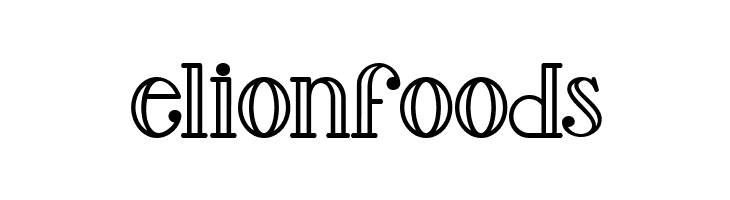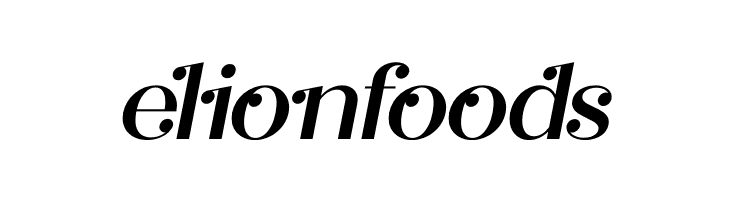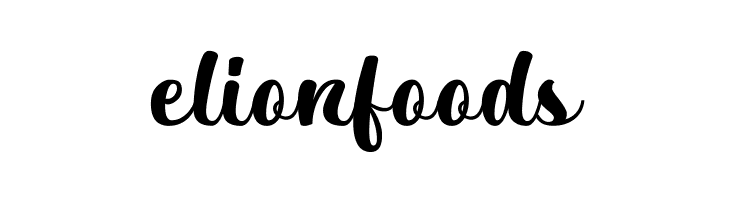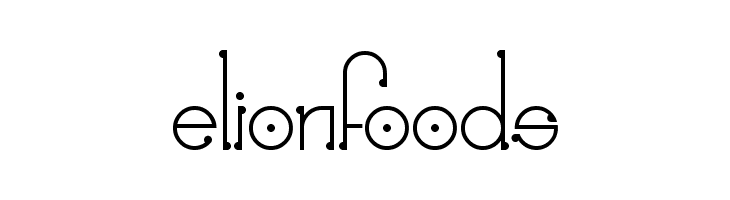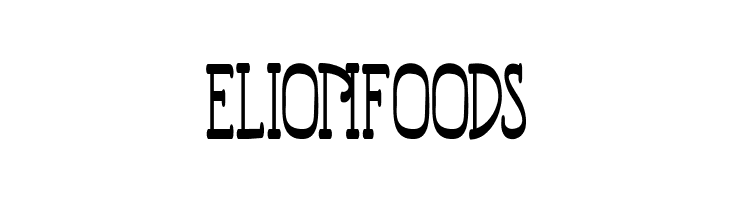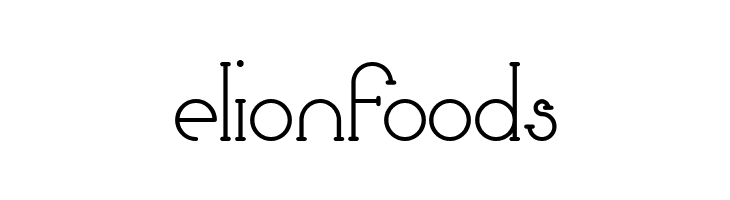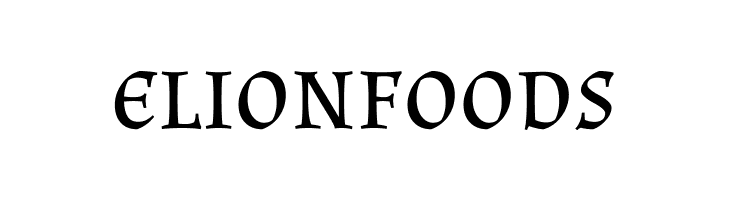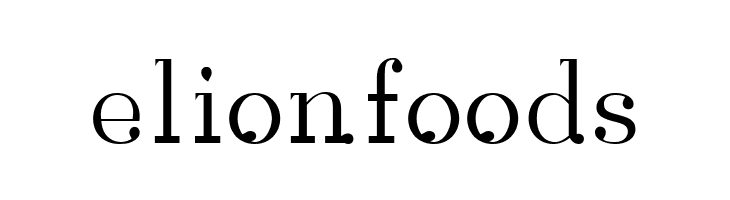
A decorative serif font with elegant, rounded terminals and a classic-modern blend.
A playful and whimsical font with rounded, looped terminals and consistent stroke width.
An elegant italic font with unique rounded terminals and a sophisticated style.
A bold, playful script font with flowing, cursive letterforms and rounded terminals.
A bold, decorative font with playful serifs and dynamic strokes.
A modern, playful font with thin lines and rounded terminals.
A bold, decorative font with rounded terminals and a vintage railway-inspired style.
A modern, elegant font with thin strokes and rounded terminals.
A classic serif font with elegant, decorative terminals and strong readability.
A classic serif font with elegant, rounded terminals and high contrast strokes.